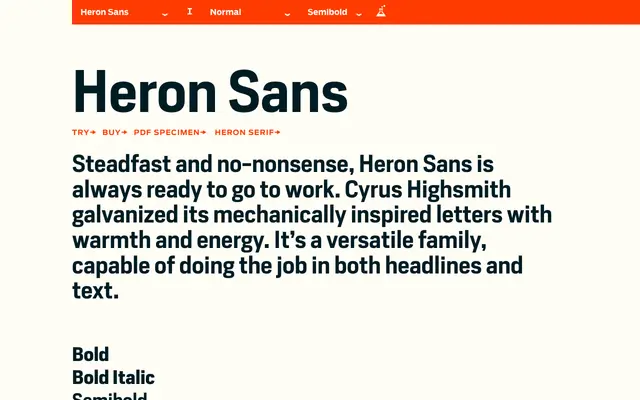
Heron Sans
Occupant Fonts · Cyrus Highsmith · 2008
A mechanically inspired humanist sans by Cyrus Highsmith, balancing utilitarian rigour with enough warmth to work across both text and headline settings.
Designed by Cyrus Highsmith and released in 2008, Heron Sans draws on mechanical letterform principles while retaining the energy needed to hold attention at display sizes and remain readable in running text. The family runs across five weights from Light to Bold, each with an italic, and a full Condensed subfamily adds ten further styles for tighter columns and poster work. Extended Latin coverage and a generous set of OpenType features including stylistic alternates and ligatures make it a capable choice for demanding editorial environments.
Mechanically inspired letterforms with added warmth and energy suggest a humanist approach to a utilitarian sans; the mix of headline and text capability points to a well-considered humanist sans rather than a purely geometric or grotesque model.